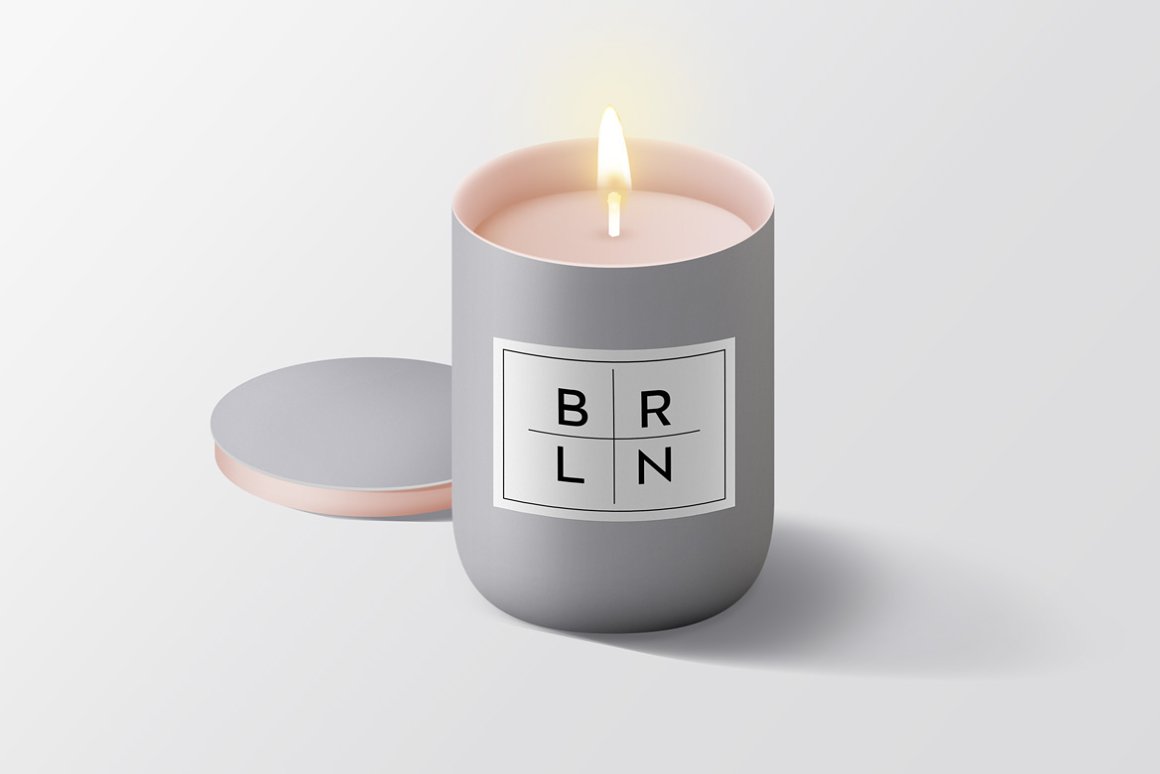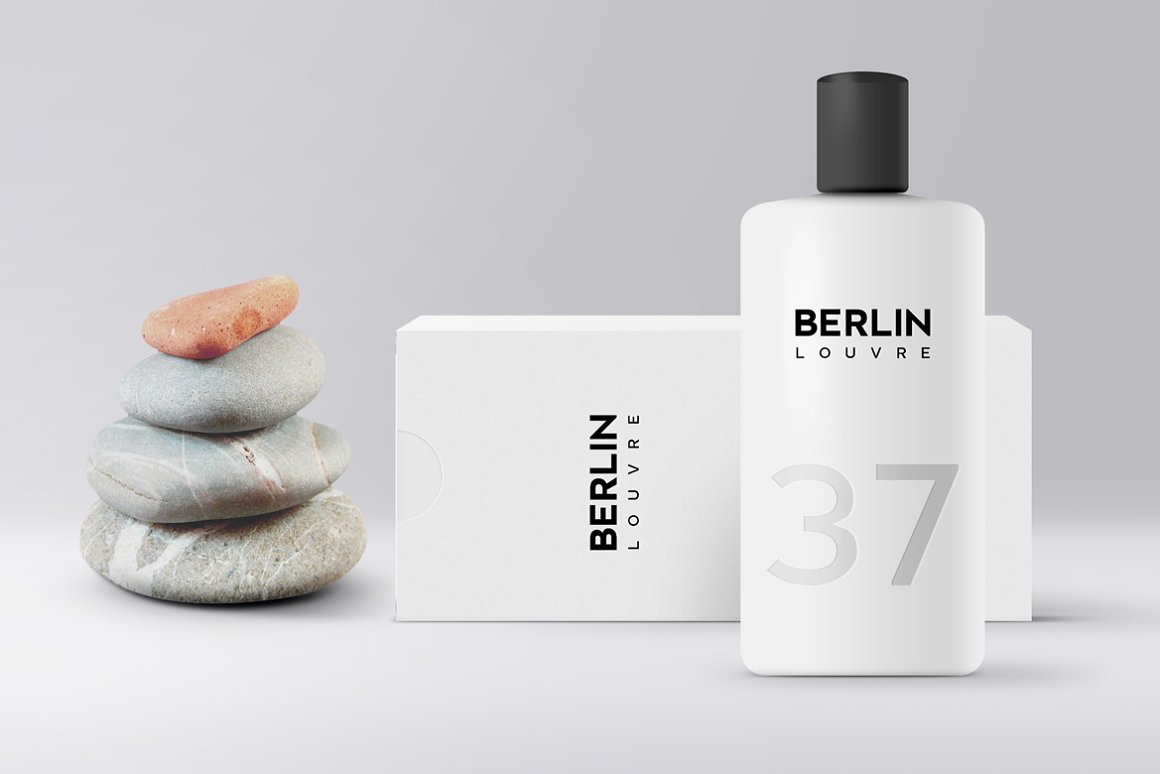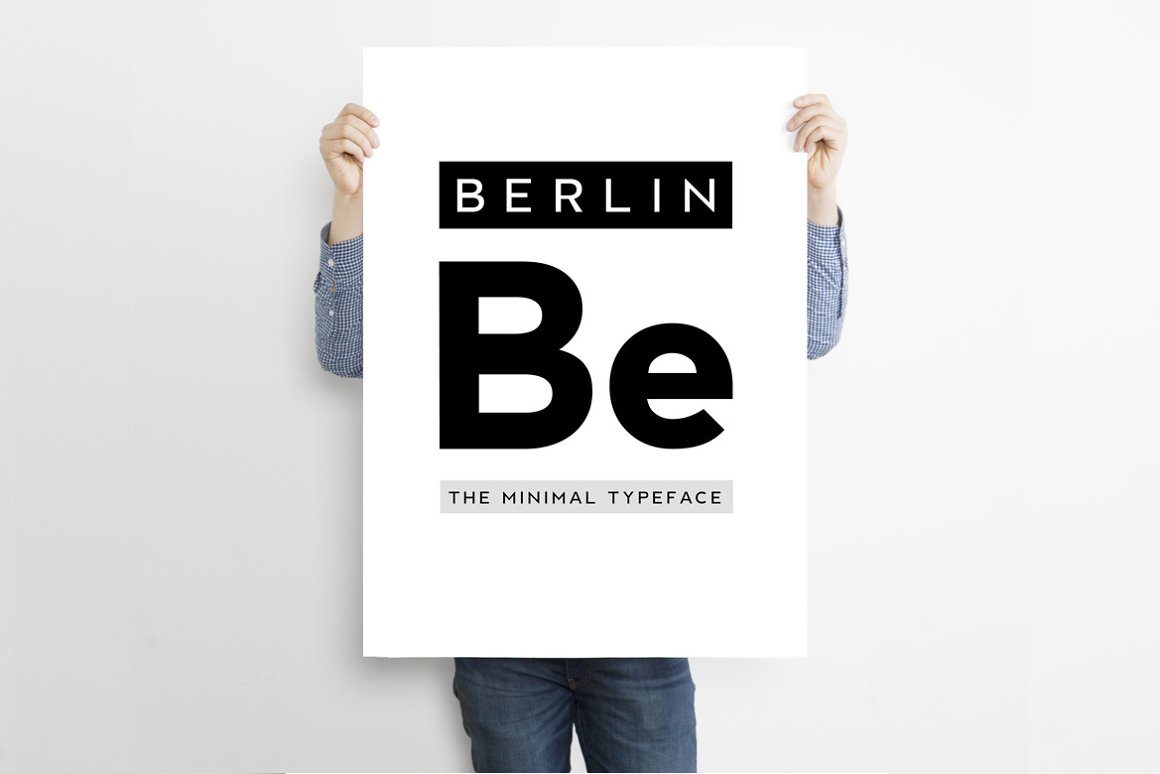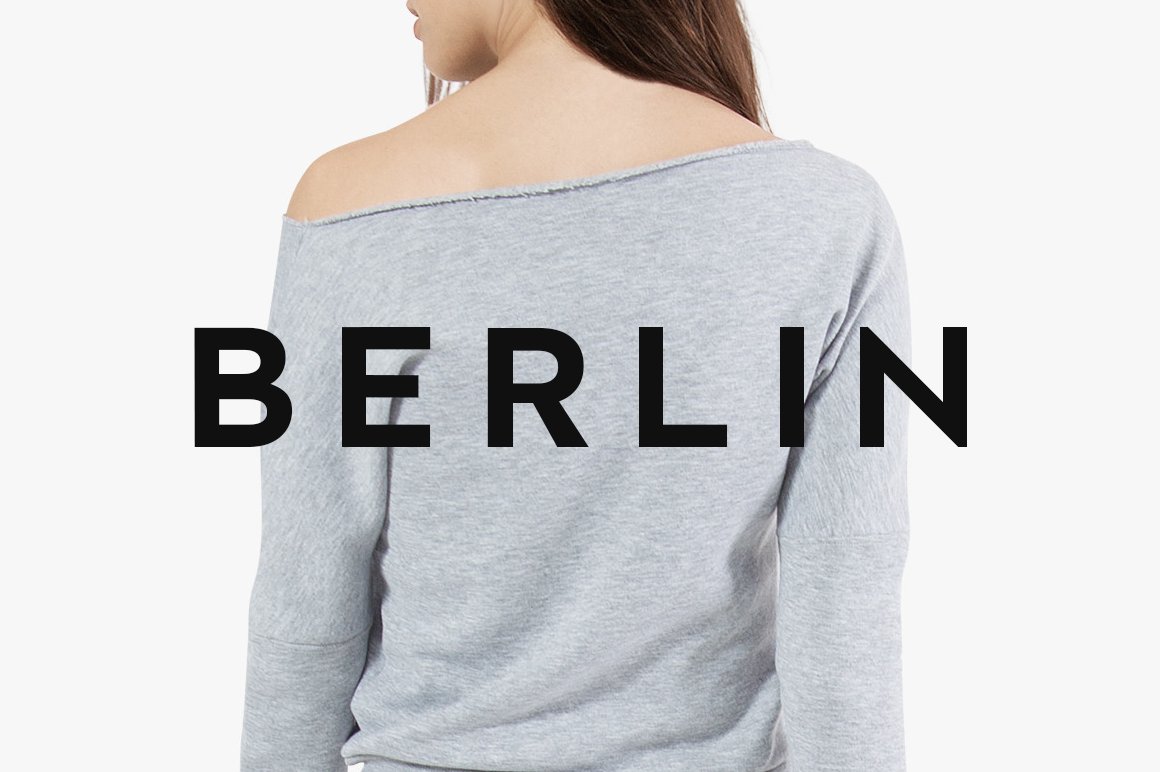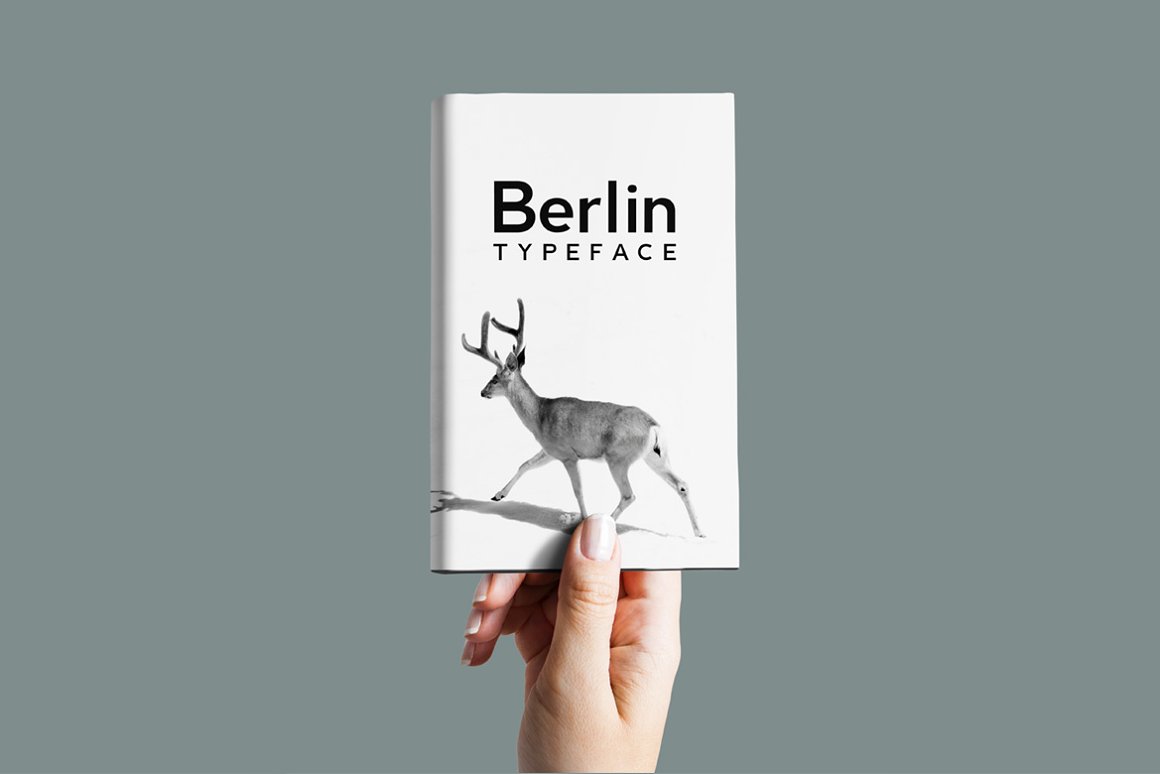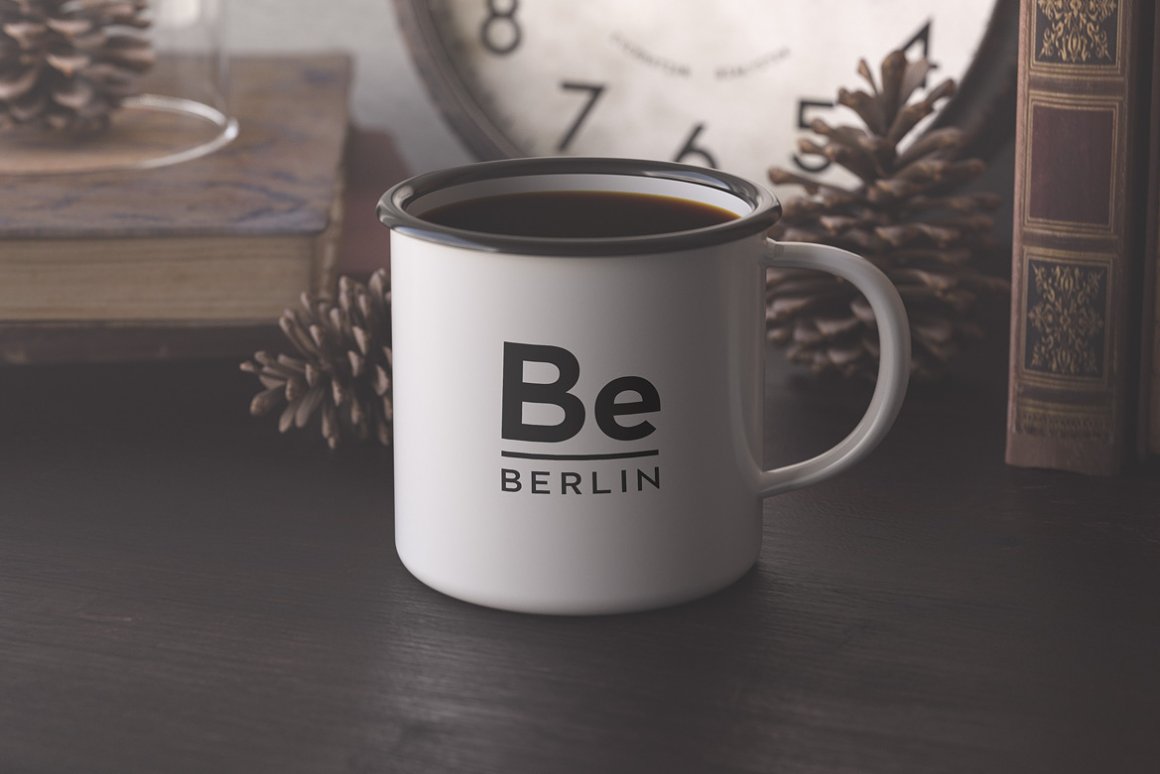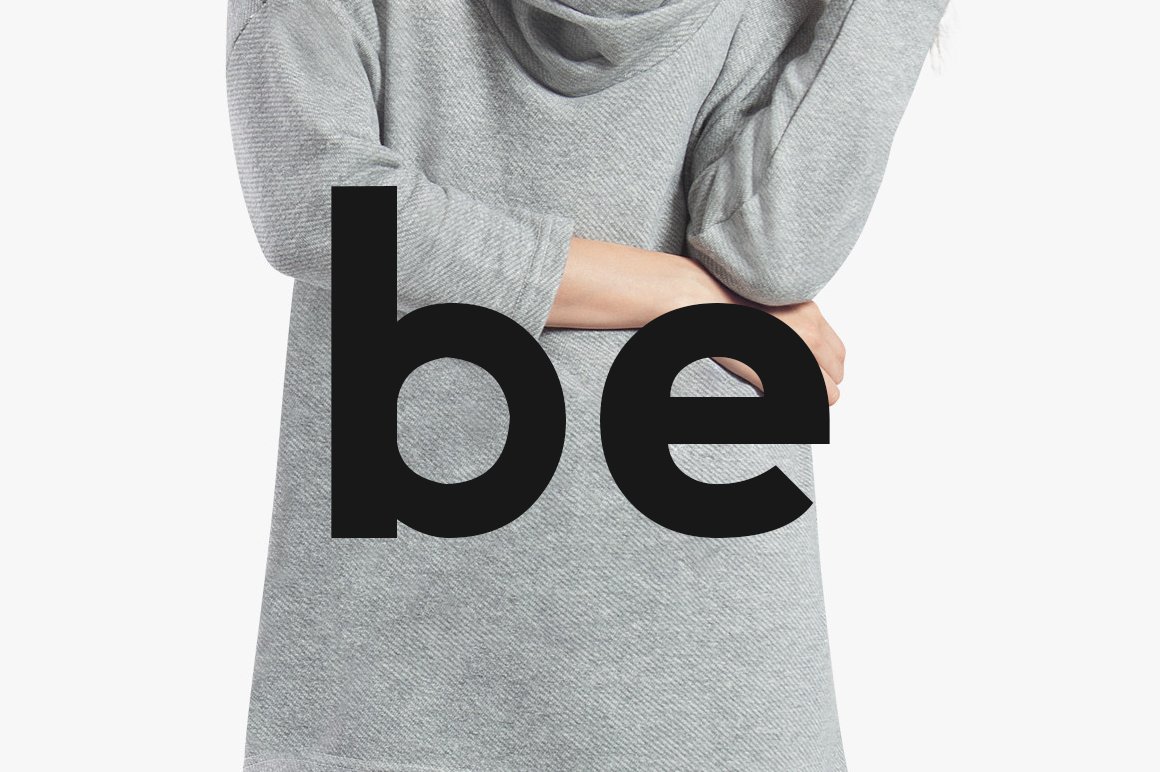
BERLIN - Minimal Typeface
BERLIN is a modern Sans Serif headline typeface inspired by some classic geometric typefaces that keep the minimalism at it's level best. The concept of BERLIN is based on our SIGNIA PRO typeface which was released earlier, but we have added more perfection and attention to the details.
BERLIN will be best suited for creating nicely looking headlines (add some letter spacing and it will amaze you) that you always find in fashion web stores and minimal portfolio websites. The font comes with 4 weights with all formats including Web Fonts.
*Major update v3.0 released on 15 August 2020 (Entirely reworked the kerning and added some more tweaks to the glyphs. )